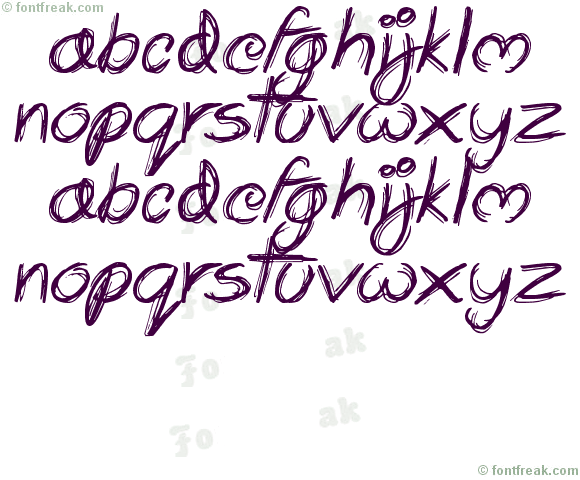
Scrapbooking
About Scrapbooking
The Scrapbooking font by Jonathan S. Harris is a delightful handwritten typeface that captures the essence of personal expression and creativity. This decorative font features a playful style with varying stroke weights that give it an organic, hand-drawn appearance. The letters exhibit a charming irregularity, mimicking the spontaneity often found in scrapbooking projects. The spacing between characters is thoughtfully designed to maintain readability while allowing for a whimsical flow, making it perfect for conveying warmth and personality.
This font is ideal for a variety of creative applications. It shines in scrapbooking layouts, where its unique character can enhance the visual storytelling of personal memories. Additionally, the Scrapbooking font works wonderfully for wedding invitations, infusing them with a sense of intimacy and charm. It can also be used effectively on greeting cards, children’s book covers, or any playful branding materials, making it a versatile choice for those looking to add a special touch to their designs.
Target audiences for this font include graphic designers, small business owners, and content creators who seek to elevate their projects with a distinctive flair. Whether you’re designing a heartfelt invitation or a quirky promotional poster, the Scrapbooking font brings a sense of joy and creativity to the forefront.
What sets the Scrapbooking font apart is its ability to convey emotion and personality with each letter. The handcrafted style makes it feel personal and approachable, perfect for projects that aim to connect with the audience on a deeper level. With the Scrapbooking font free download available, designers and creators can easily incorporate this expressive typeface into their work, enhancing their designs with a unique touch that resonates.